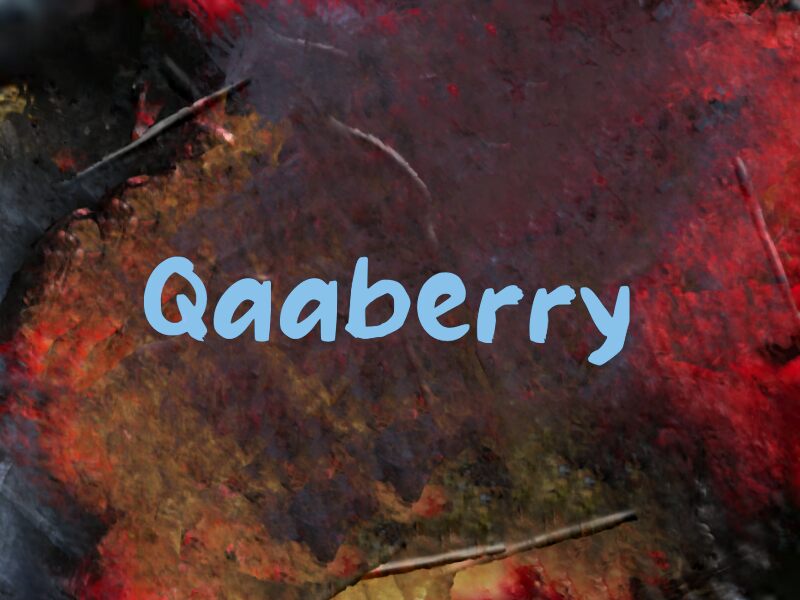
Qaaberry
Qaaberry font by wep is a free brush typeface with a juicy, hand-painted feel that looks like it’s been drawn with a chunky marker on smooth paper. The letters are bold, rounded, and slightly bouncy, with inky edges that keep it casual and friendly rather than slick or polished. It has an easy, handwritten rhythm that makes words feel approachable and a little bit playful, like a note scribbled on a cafe chalkboard or a DIY label on a homemade jar.
Using Qaaberry, this free font shines on kids’ products, food packaging, hobby and craft brands, social media graphics, posters, and informal logos that need warmth and personality. The generous weight and soft curves stay legible even at smaller sizes, but it really comes alive as a big, punchy headline. Pair Qaaberry with a simple, clean sans serif for body text to balance its energetic brush strokes and keep your layouts readable.